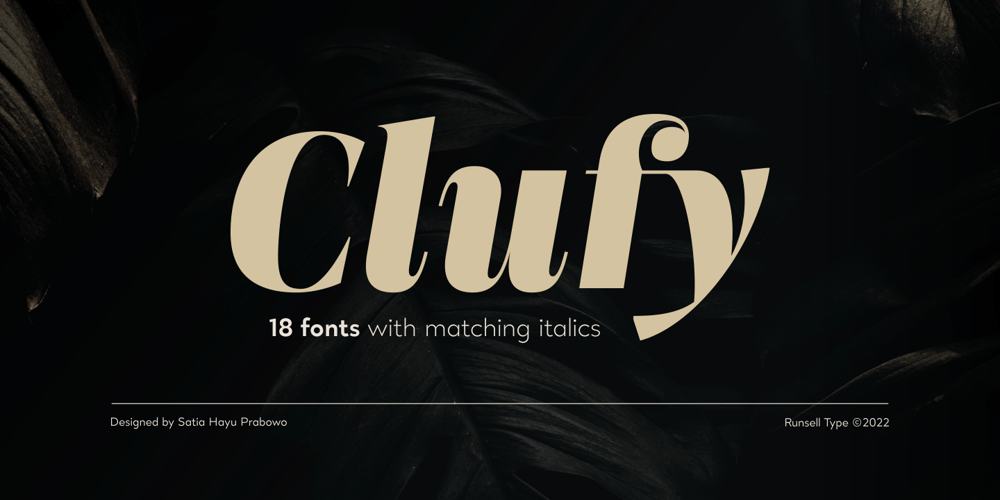
Clufy
Clufy font
Clufy Font Family was designed by Satia Hayu Prabowo and published by Runsell Type. Clufy contains 20 styles and family package options. Clufy is an editorial serif typeface inspired by neoclassical serif style typography. Clufy is perfect for headlines, editorial design, monograms, branding, logos, poster design, and more. Clufy includes approximately 601 glyphs support with features such as ligatures, alternate characters, old-style figures, fractions, numerator/denominator, superior/inferior, and various symbols, also support around 200 languages in Latin.